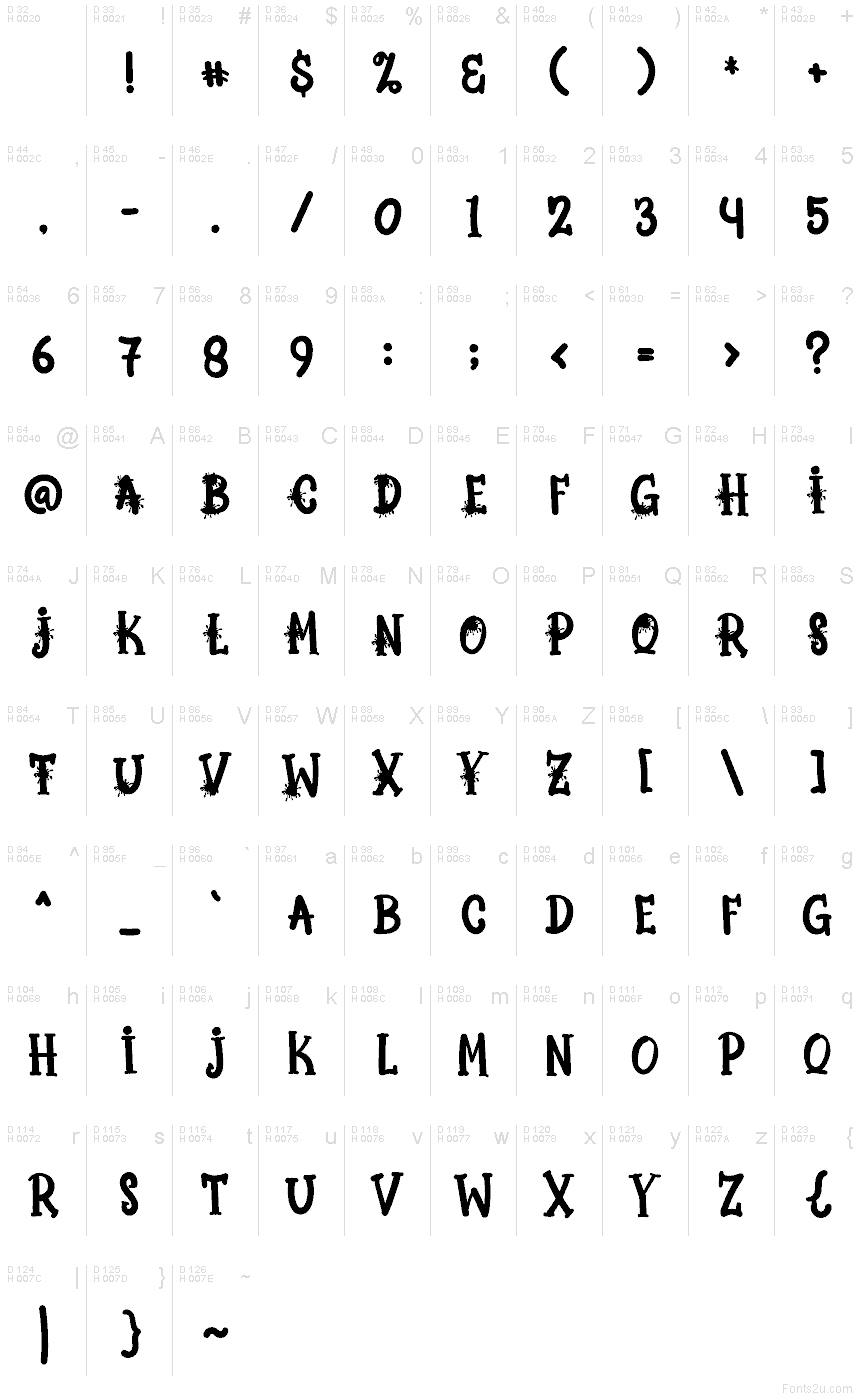
Smart Halloween
Smart Halloween font by Bilqis Studio is a free Halloween display font. Its letters look hand-brushed and a little feral—inky drips, gnawed edges, and a lively rhythm that feels half-grin, half-growl. The shapes read fast at a glance yet keep that gooey, splattery texture that screams spooky season without turning messy.
Using Smart Halloween, you can nail party flyers, haunted house posters, candy bag stickers, costume shop signage, streaming thumbnails, and seasonal social ads. The sturdy strokes hold up on banners and headers, while the irregular bounce adds character to invitations and treat labels. This free font shines when you size it big; pair it with a clean, light sans-serif for body copy to keep the scares legible.